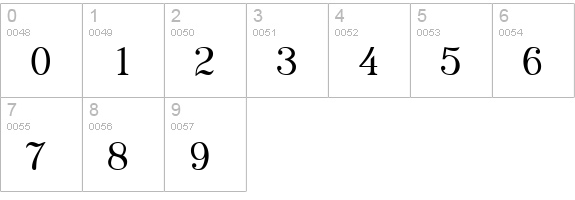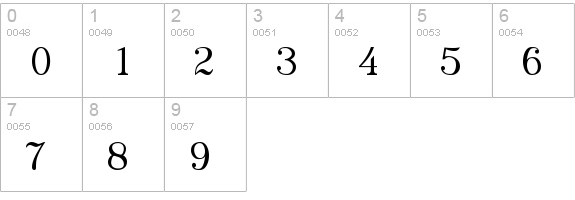
Rataczak Roman is an exquisite font that exudes elegance and sophistication. Its classic yet contemporary design makes it perfect for a wide range of projects, from branding and logo design to editorial layouts and invitations. With its clean lines and balanced proportions, Rataczak Roman captivates the eye and adds a touch of refinement to any design. It is meticulously crafted to ensure readability at any size, making it suitable for both headlines and body text. What sets Rataczak Roman apart is not just its stunning aesthetics, but also its accessibility. This font is freely available to download at FontsMarket.com, allowing designers and creatives to unleash their creativity without any constraints. The freedom to use Rataczak Roman in personal and commercial projects makes it a valuable asset for anyone seeking to elevate their designs. Whether you're working on a professional project or simply looking to add a touch of elegance to your personal endeavors, Rataczak Roman is the perfect choice. Its versatility and timeless appeal make it a font that will never go out of style. Download Rataczak Roman today and experience the freedom to create stunning and impactful designs.